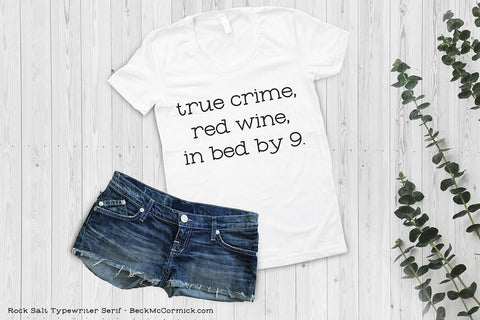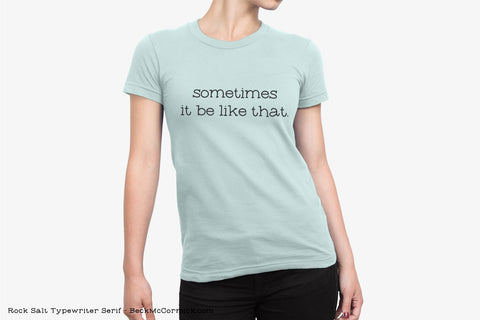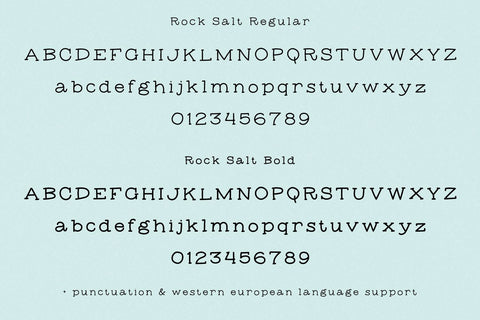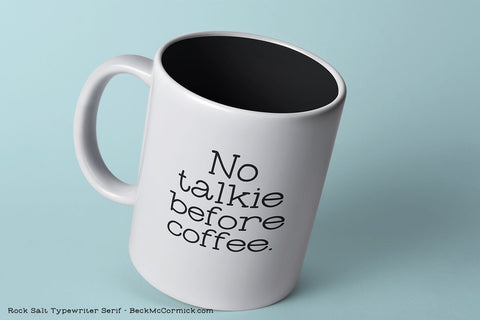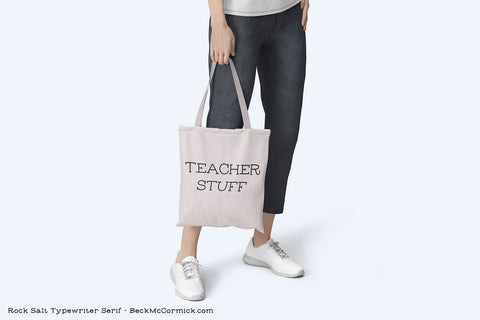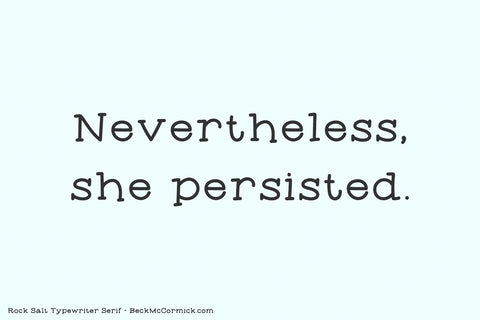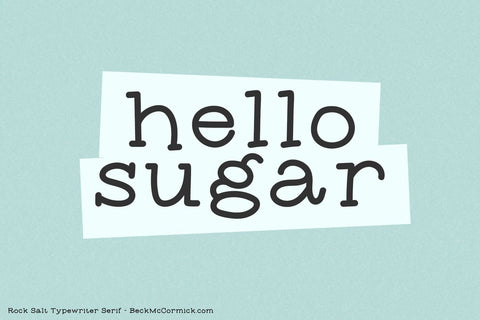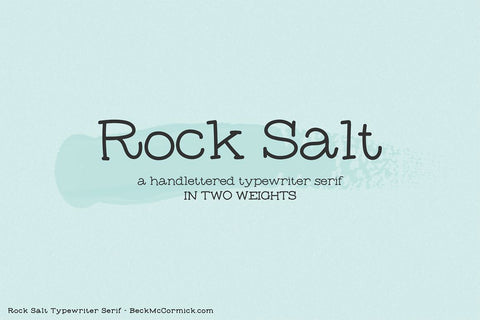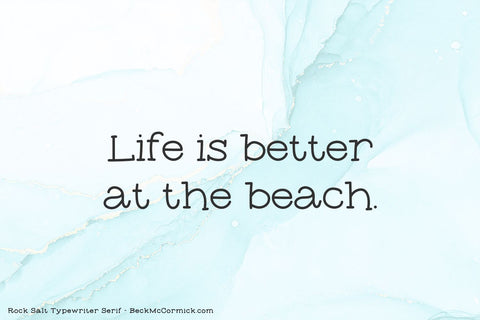
Rock Salt Typewriter Serif Font
Meet Rock Salt, a typewriter serif in two weights. Rock Salt is a handwritten font with cute farmhouse style!
Rock Salt is best for:
- logos + branding
- crafty projects using your Cricut or Silhouette machine, perfect for creating SVGs or your own vinyl labels
- website design + website accents - think travel blogs, fashion blogs, & more
- clean print design, like magazines + flyers
- header elements that need handwritten touch
- quote graphics for social media
- full uppercase and lowercase characters
- numbers + punctuation
- Western European Language Support